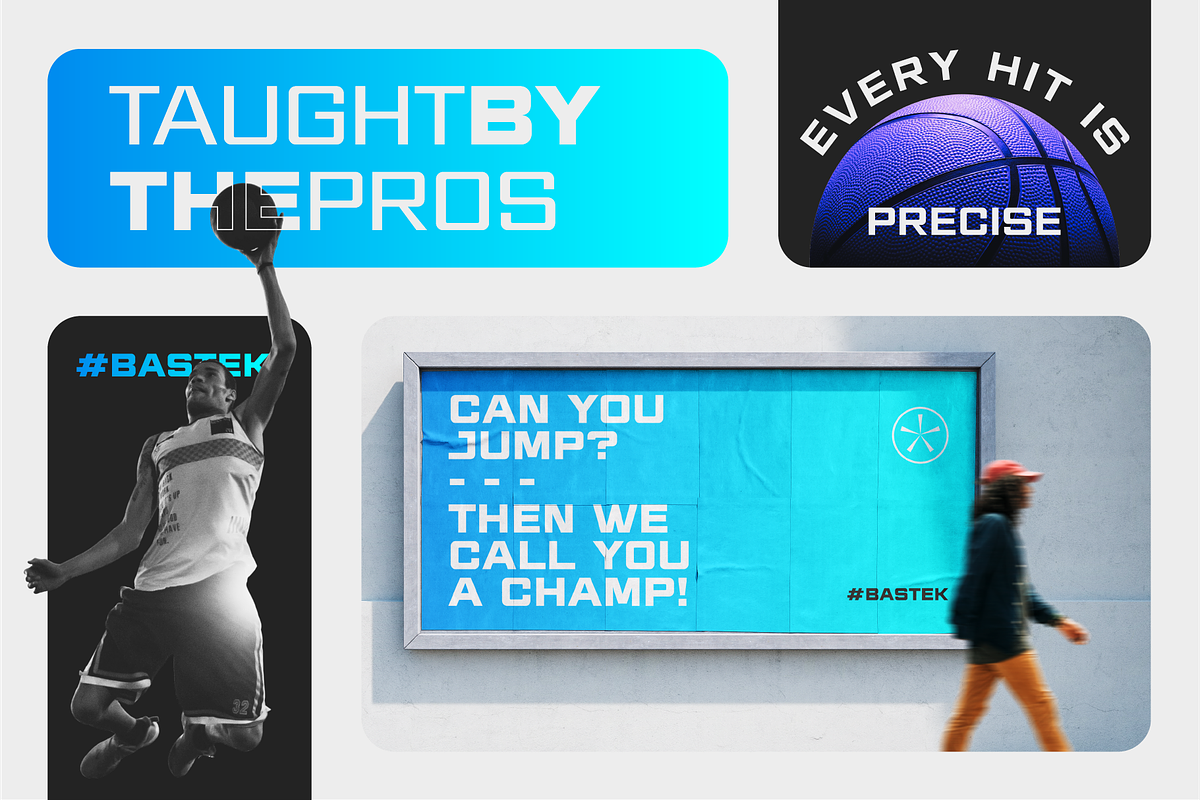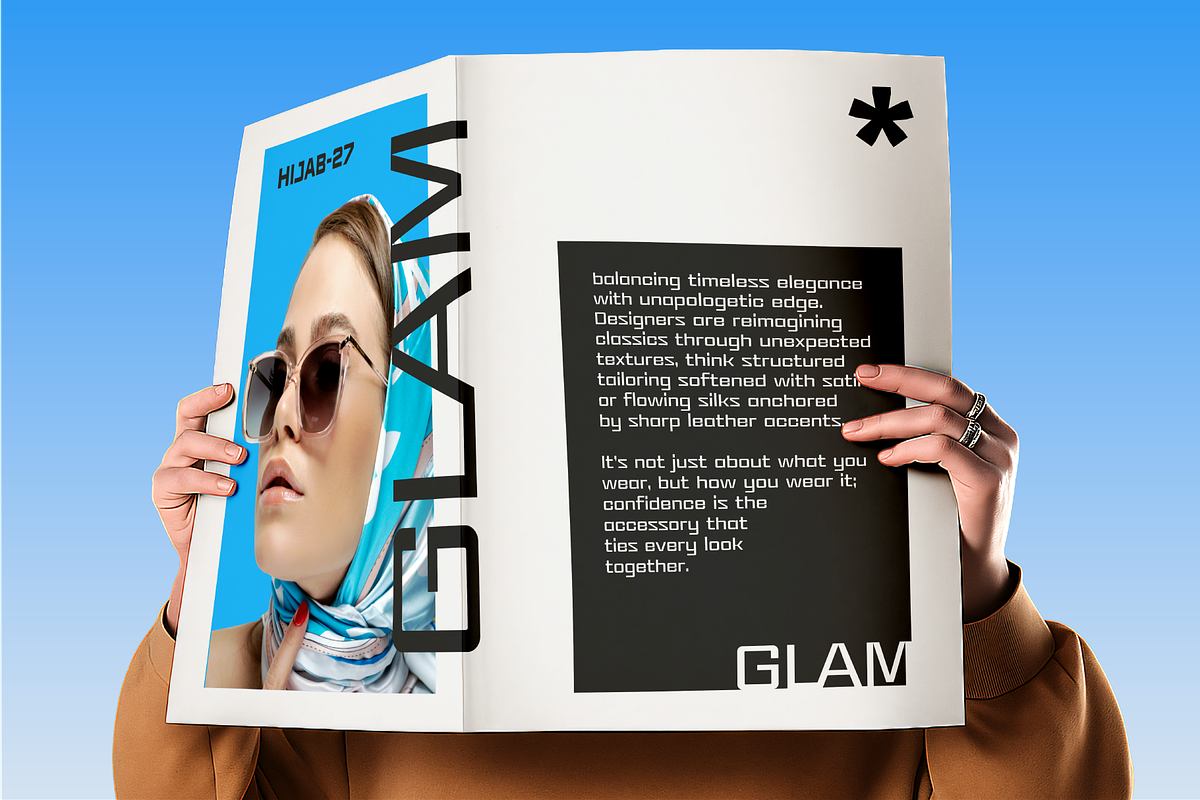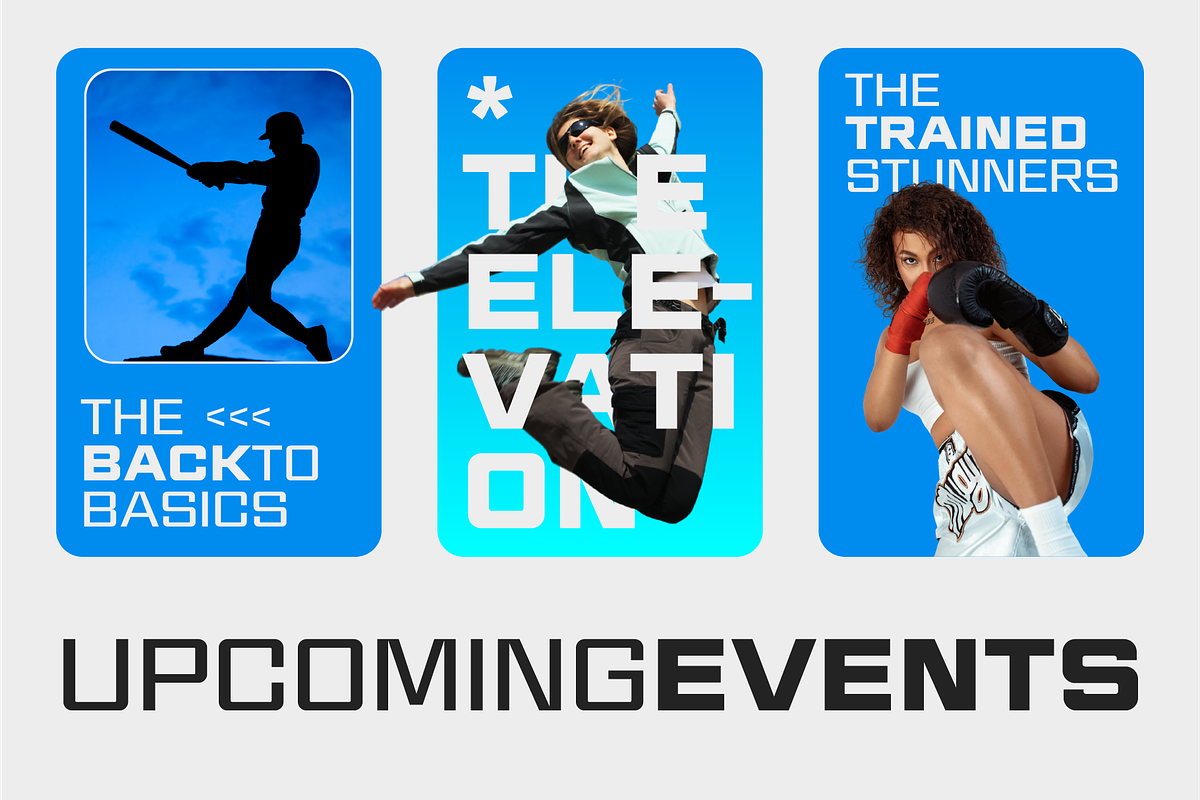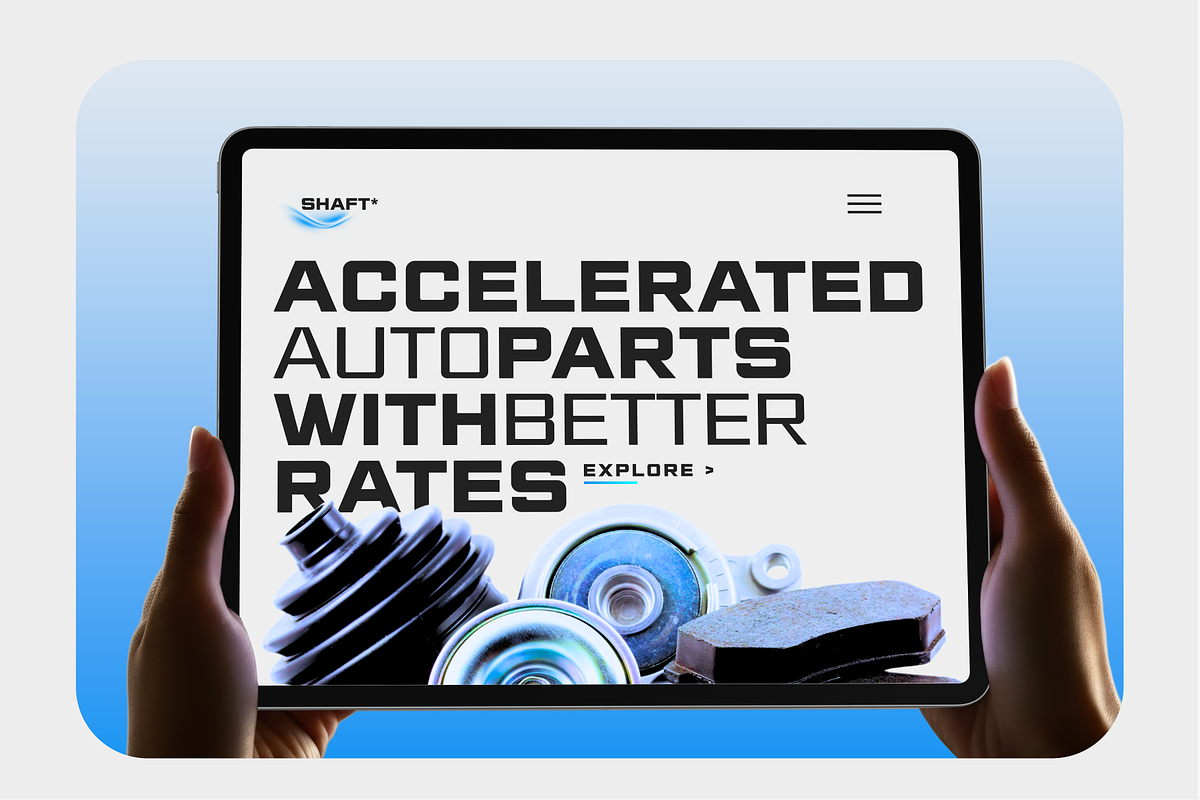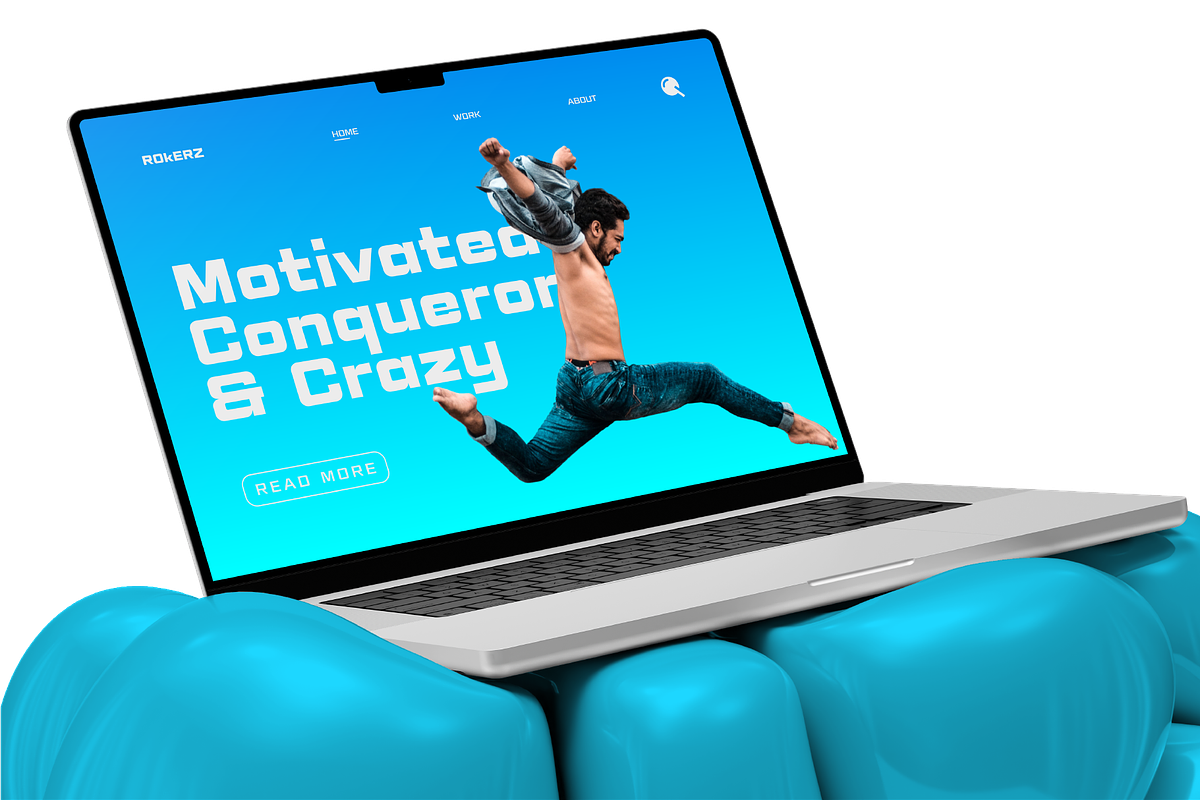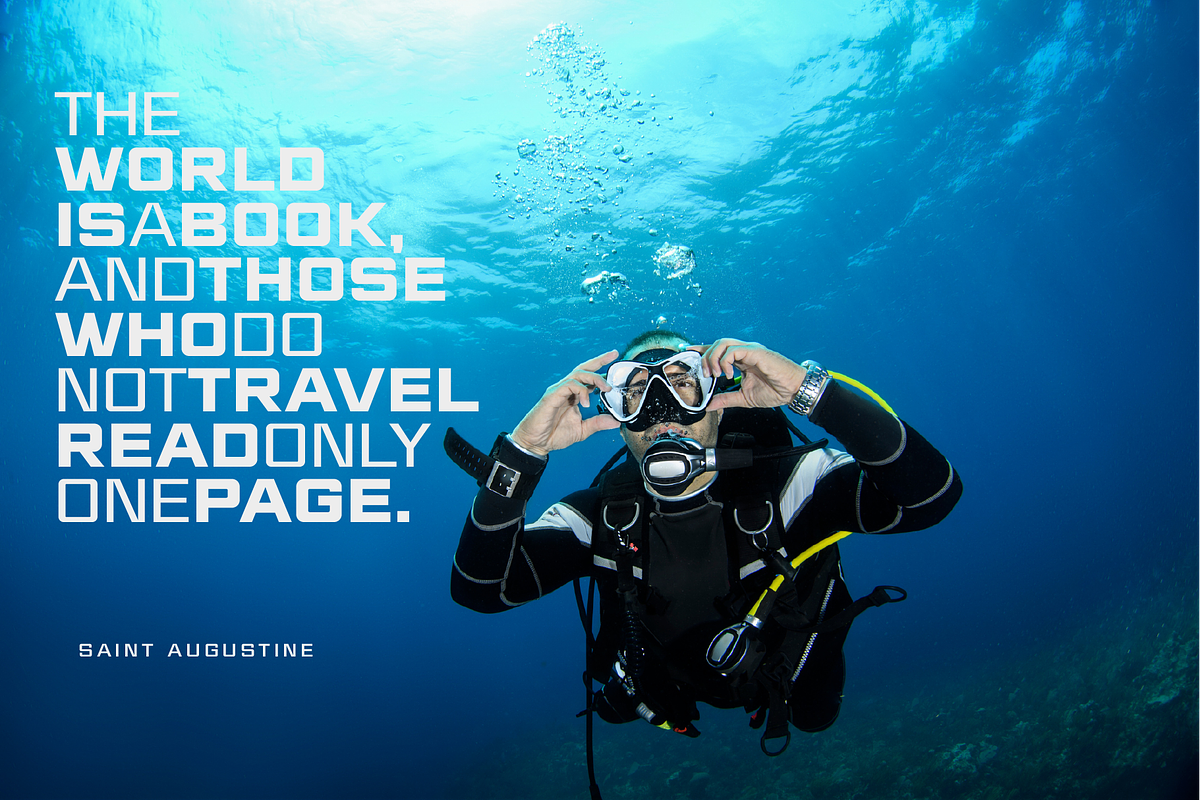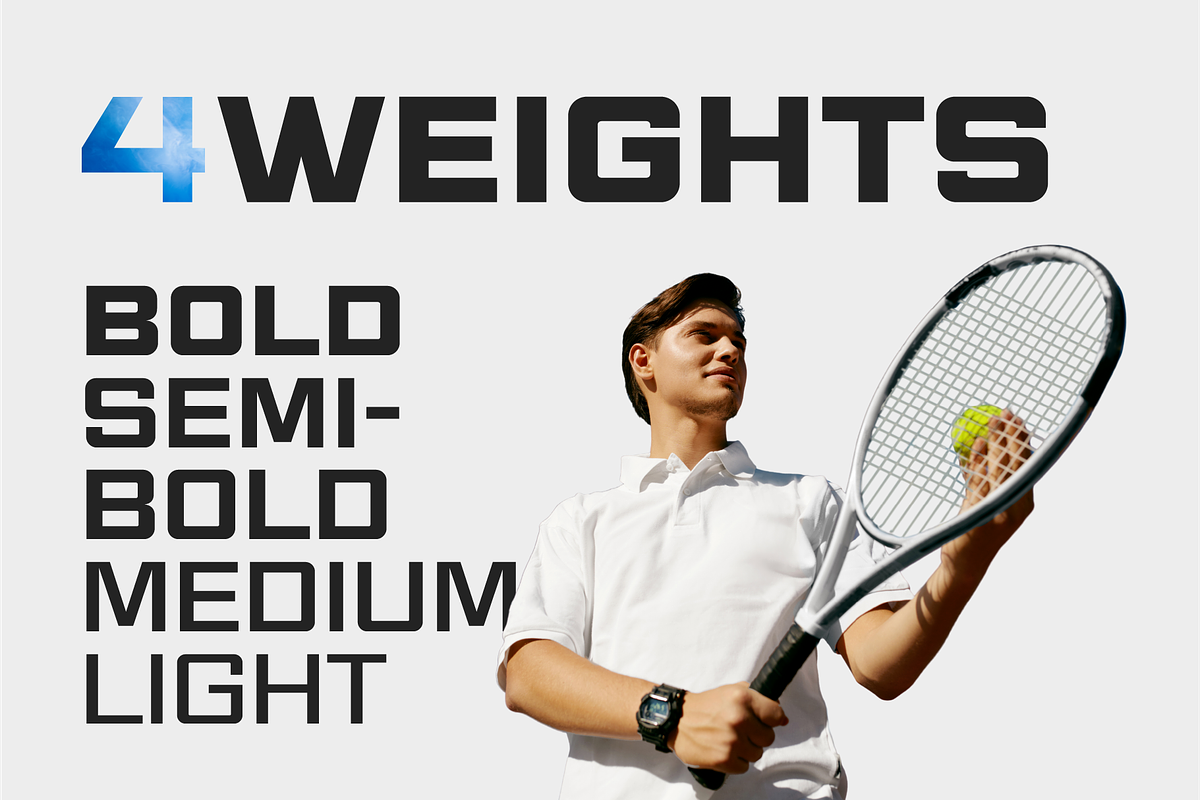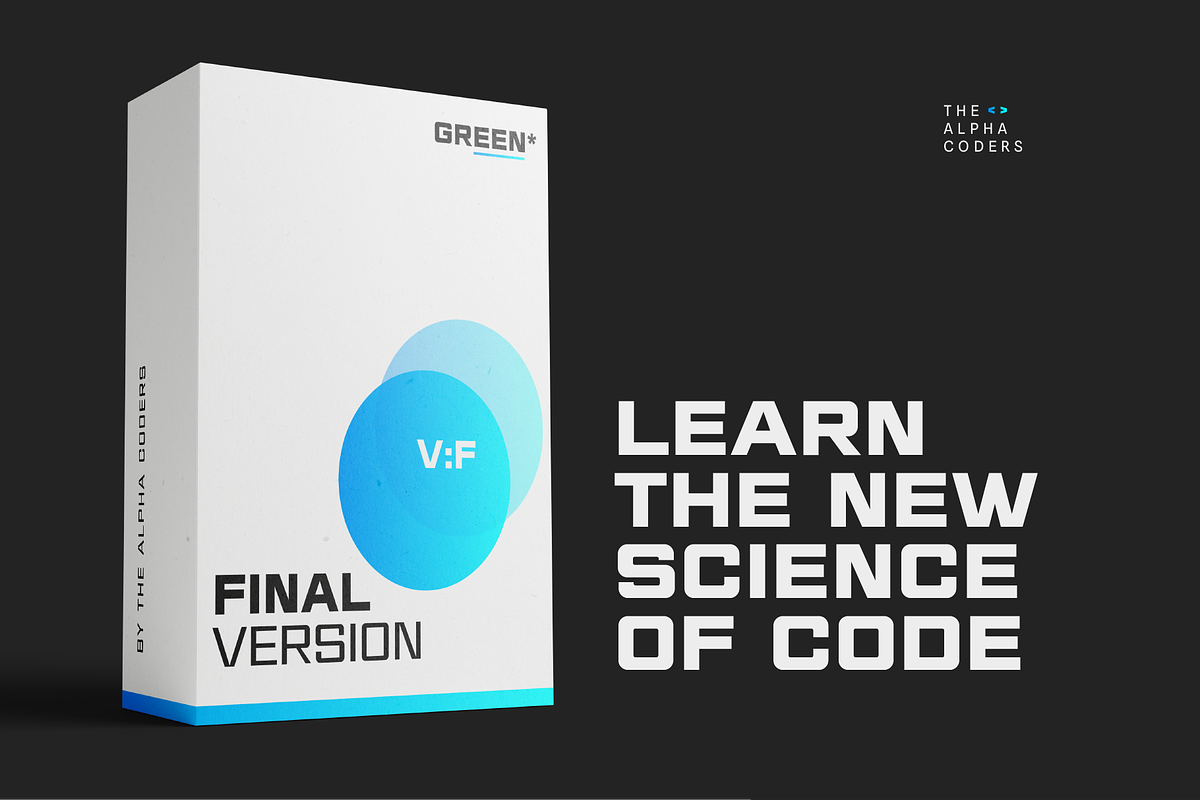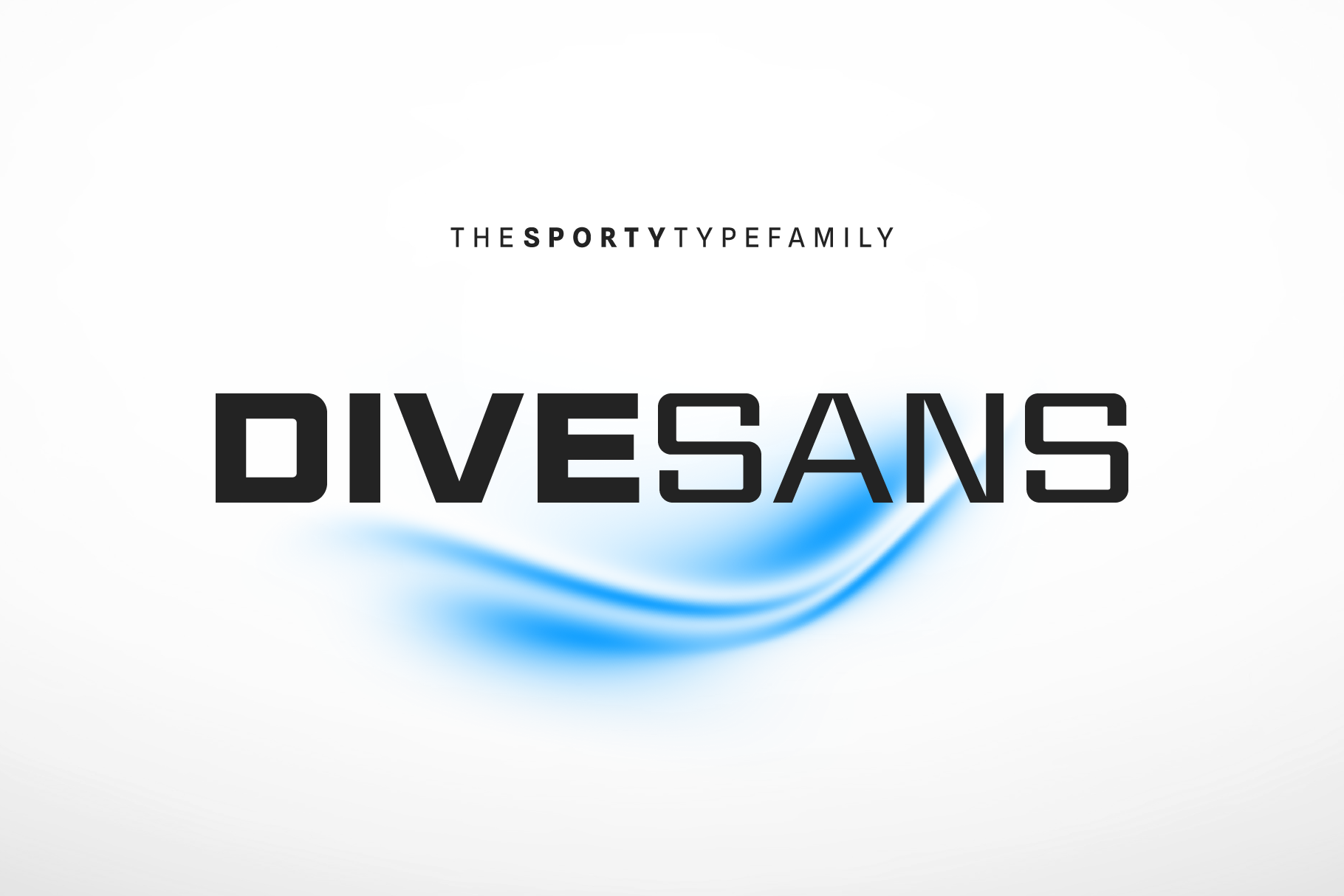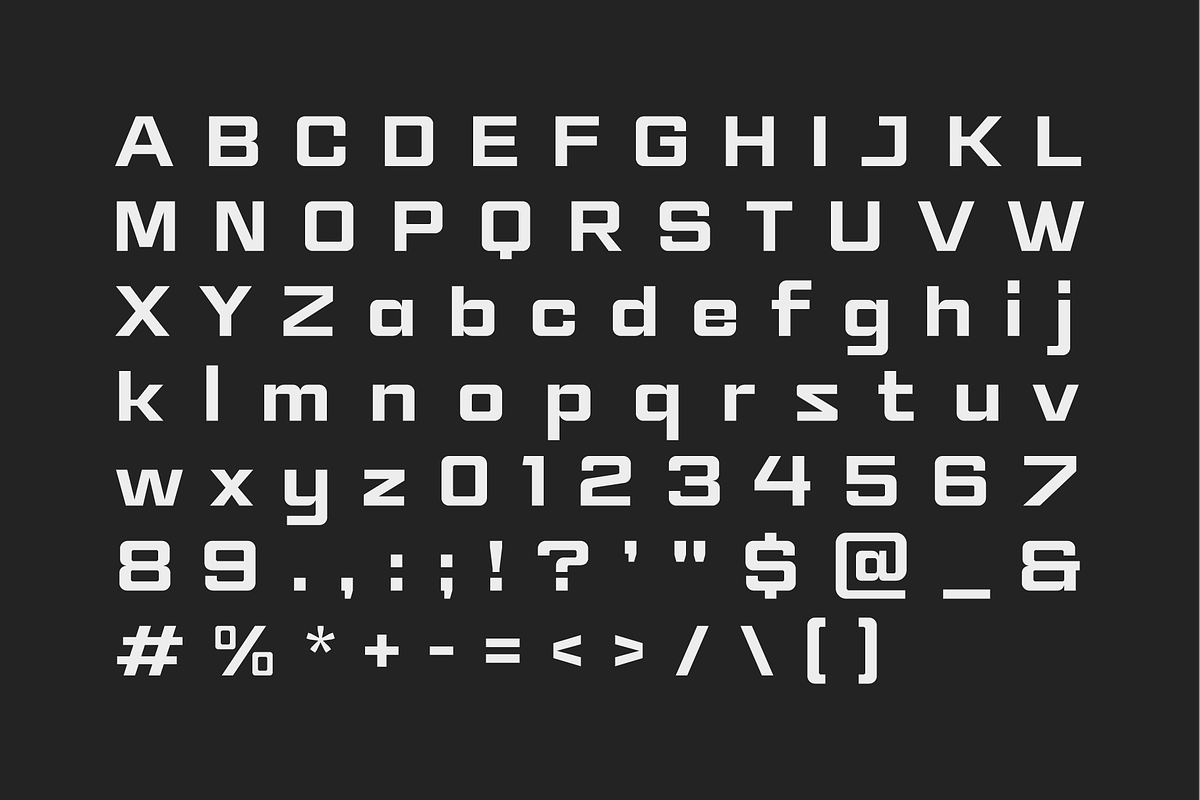
DiveSans-Bold Sports Typeface
DiveSans is a clean, geometric sans serif; this sporty typeface includes four different weights, each font maintaining the same geometric foundation, ensuring consistency across various uses. Its clean, sharp lines and balanced proportions make it versatile for both digital and print applications. Whether you’re creating bold headlines, athletic branding, dynamic posters, or performance-driven apparel graphics, DiveSans delivers impact with clarity.